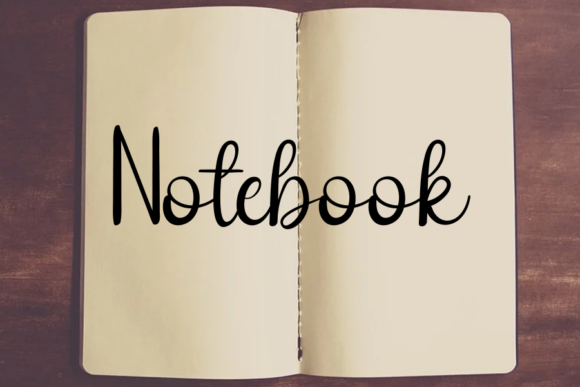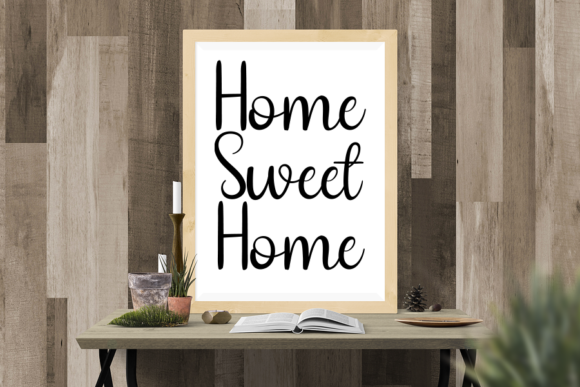
Willona Font
db-ku.com - Script & Handwritten -- Willona is a clean, easy to read and delicate handwritten font. This font was particularly crafted for those who need a beautiful and refreshing look to their designs.